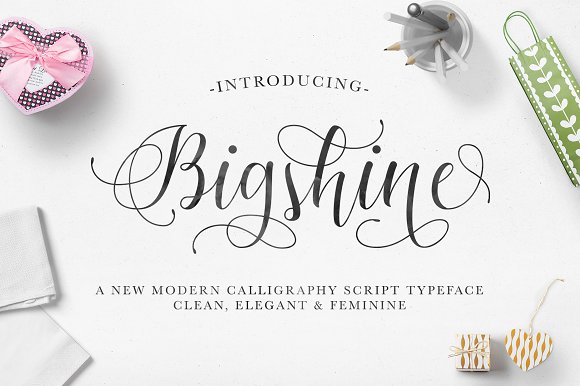
The Bigshine Font: A Modern Handwritten Calligraphy Style
Have you ever been in the middle of a design project, and suddenly, you just can’t seem to find the right font? I recall a particularly frustrating experience when I was working on a wedding invitation design. My client wanted a elegant, yet modern feel, but every font I tried seemed either too formal or too bland. That’s when I stumbled upon the Bigshine font, created by Ian Mikraz. This stunning modern handwritten calligraphy style font has been a game-changer for me, and I’m excited to share my experience with you.
A Personal Review of Bigshine
• ✨ Extensive Character Set: Bigshine features 317 glyphs and 132 alternate characters, making it incredibly versatile for various design projects.
• ✅ Elegant and Modern: The font’s modern handwritten calligraphy style adds a touch of sophistication and elegance to any design.
• 💫 OpenType Features: Bigshine supports OpenType features, allowing for advanced typographic control and customization.
While Bigshine is an excellent font, there are a few minor quirks to be aware of:
• ⚠️ Learning Curve: With 317 glyphs and 132 alternate characters, it may take some time to get familiar with the font’s capabilities and how to access them.
• 🤔 Limited Use in Body Text: Due to its elegant and cursive nature, Bigshine might not be the best choice for lengthy body text. It’s better suited for headings, titles, or short paragraphs.
The Story Behind Bigshine
Ian Mikraz, the creator of Bigshine, is a talented font designer with a passion for crafting beautiful, unique typefaces. According to his inspiration, Bigshine was designed to bring a touch of elegance and sophistication to modern designs. With its extensive character set and OpenType features, Bigshine has become a popular choice among designers and crafters.
Q: What is the primary use of the Bigshine font?
A: Bigshine is ideal for designs that require a modern, elegant, and handwritten calligraphy style, such as wedding invitations, luxury branding, and high-end advertising.
Q: Is Bigshine suitable for body text?
A: While Bigshine is an excellent font, it’s better suited for headings, titles, or short paragraphs due to its elegant and cursive nature.